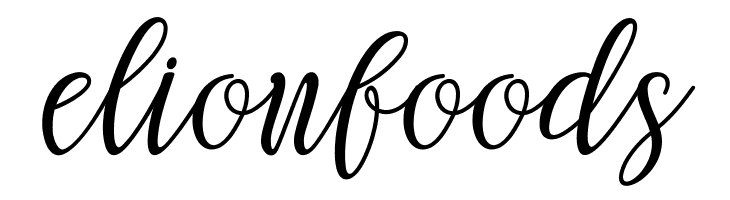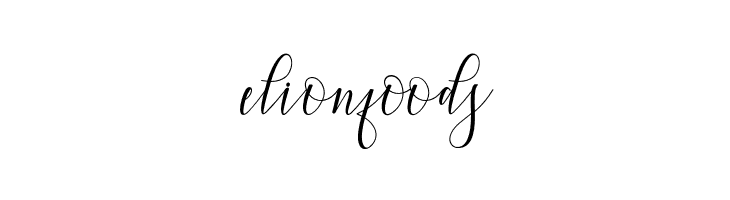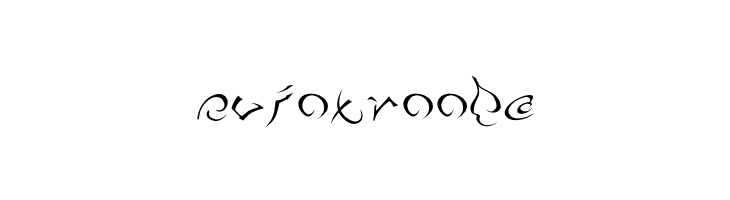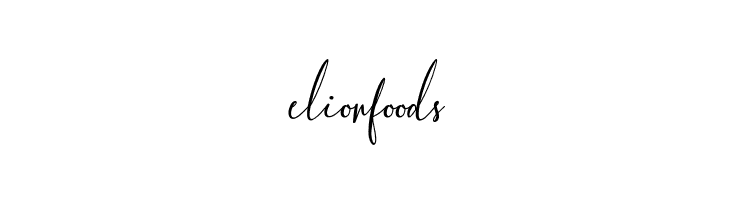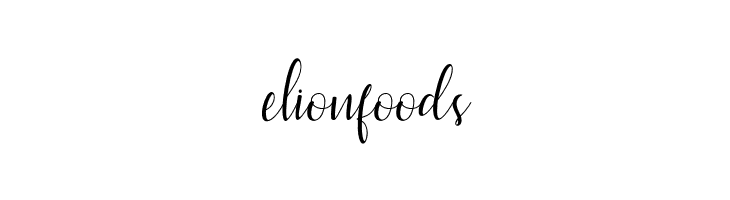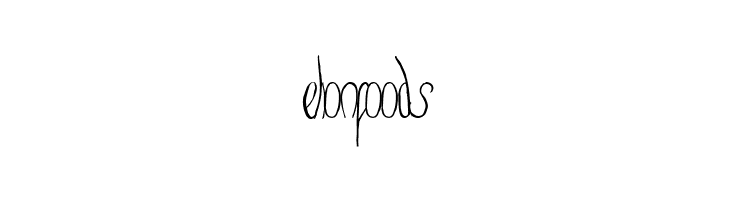
( Syahputra - creativemarket.com/Bexxtype )
A graceful script font with flowing, cursive letters and consistent stroke width.
( Syahputra - creativemarket.com/Bexxtype )
An elegant script font with flowing, interconnected letters and decorative swashes.
( Zulkhairi M Saleh - fontbundles.net/zulkhairilettering )
An elegant script font with flowing, cursive style and graceful loops.
( hechicero - www.ff-omeganebula.com )
A decorative and abstract font with mystical, symbolic characters.
( hechicero - www.ff-omeganebula.com )
An artistic and decorative font with flowing, cursive-like strokes and intricate detailing.
( mightype - creativemarket.com/mightype )
An elegant and sophisticated cursive script font with flowing, intricate designs.
( pointlab studio - creativemarket.com/pointlab )
A graceful script font with elegant loops and high contrast strokes.
( Alternika )
A whimsical, calligraphic font with elongated, flowing characters.
( Apostrophe )
A mystical, angular font with a geometric, rune-like design.
( Art Designs by Sue )
A whimsical, fairy-themed decorative font with intricate embellishments.